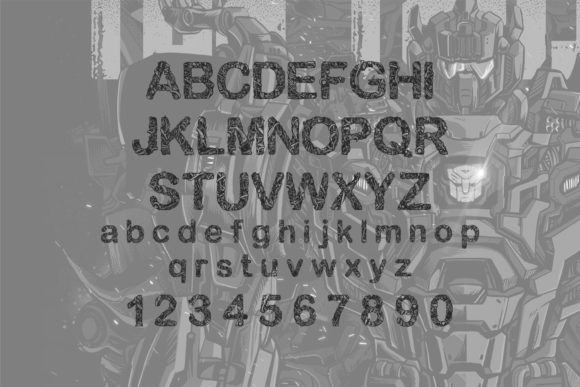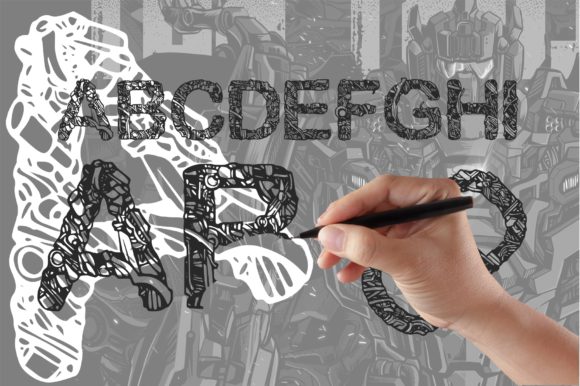
Introduction to Organoid Font
Have you ever stared at a blank canvas, trying to conjure up the perfect font to bring your creative project to life? The struggle is real, but what if I told you that the perfect font is just around the corner? Say hello to the Organoid Font, a game-changing display font that’s sure to make your designs stand out from the crowd.
With its transparent background and unique design, the Organoid Font is perfect for anyone looking to add a touch of creativity to their next project. Whether you’re working on a graphic design, web design, or even a social media post, this font is sure to make your work shine.
Key Features of Organoid Font
- High-quality, unique design: Organoid Font offers a distinctive and modern look, perfect for creative projects that require a touch of elegance.
- High-resolution design: Organoid Font is designed at a high resolution, ensuring crisp and clear text even at large sizes.
- Perfect for creative projects: This font is ideal for use in graphic design, digital art, and other creative projects where a unique and stylish font is required.
Honest Review: Organoid Font
As a designer, I’m always on the lookout for high-quality design resources to elevate my creative projects. Recently, I stumbled upon the Organoid Font, and I’m excited to share my thoughts on it.
- ✨ High-quality design: The Organoid Font boasts a unique, futuristic aesthetic that’s sure to make a statement in any design.
- ⚠️ Limited character set: The Organoid Font only includes a limited character set, which may not be suitable for complex text-based designs.
- ⚠️ Not ideal for small text: Due to its futuristic design, the Organoid Font may not be the best choice for small text, as it can be difficult to read.
Overall, I’m impressed with the Organoid Font’s unique design and high-quality features. While it may have some limitations, it’s a great resource for designers looking to add a touch of futurism to their creative projects.
The Organoid Font is a versatile design resource ideal for creative projects. It features a unique, modern style with a transparent background, making it perfect for overlaying on images or using as a standalone element.
Tips for Getting the Most Out of Organoid Font
To get the most out of the Organoid Font, use it in combination with high-quality images and graphics. Experiment with different font sizes, colors, and styles to create a unique and visually appealing design. You can also use the font to create custom icons and graphics.
The Organoid Font is ideal for use in a variety of creative projects, including:
- Brochures and flyers
- Graphic design and illustration